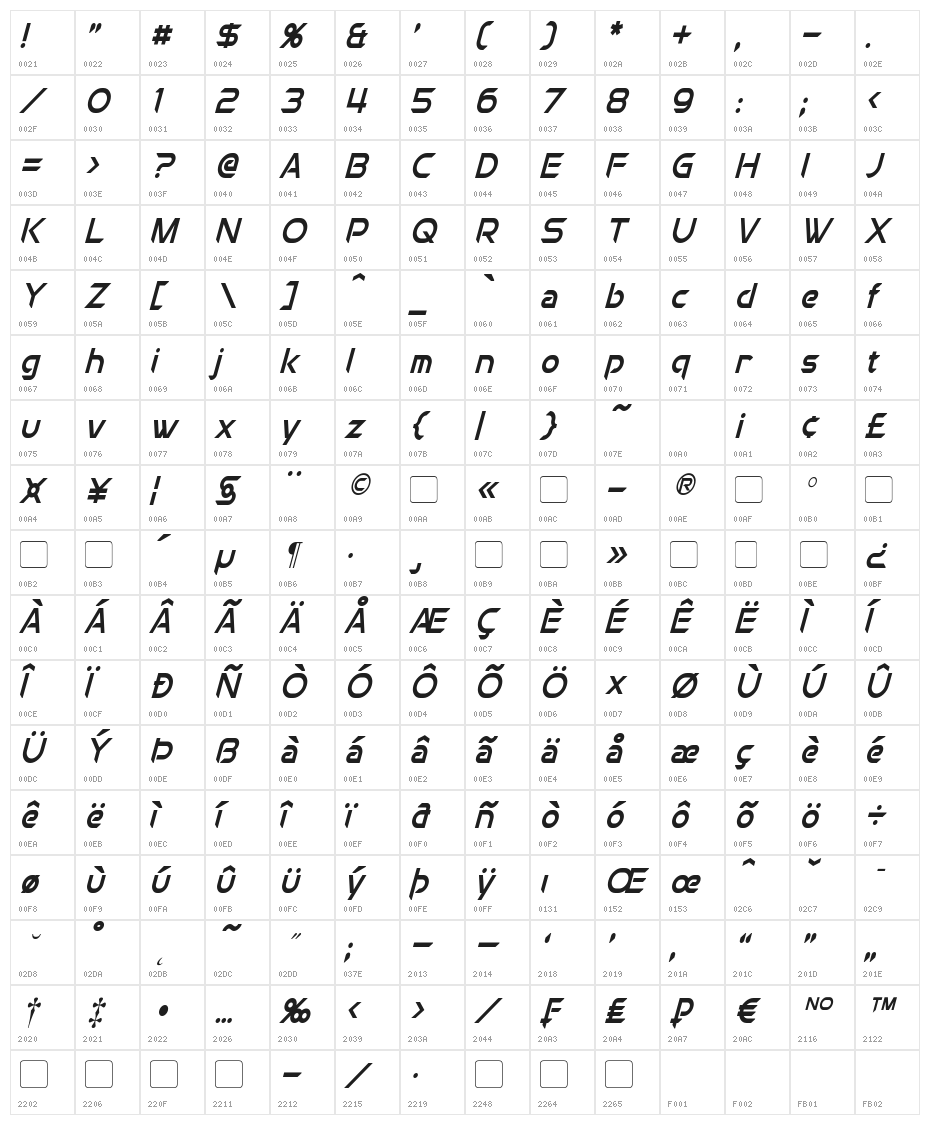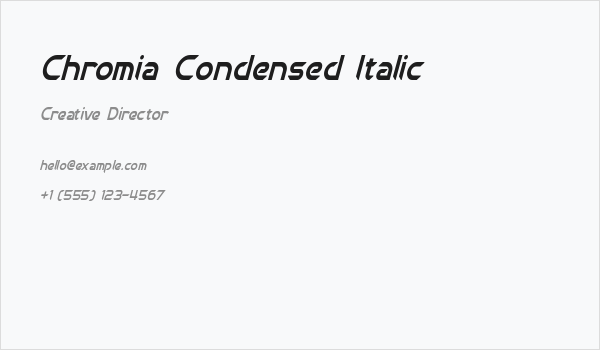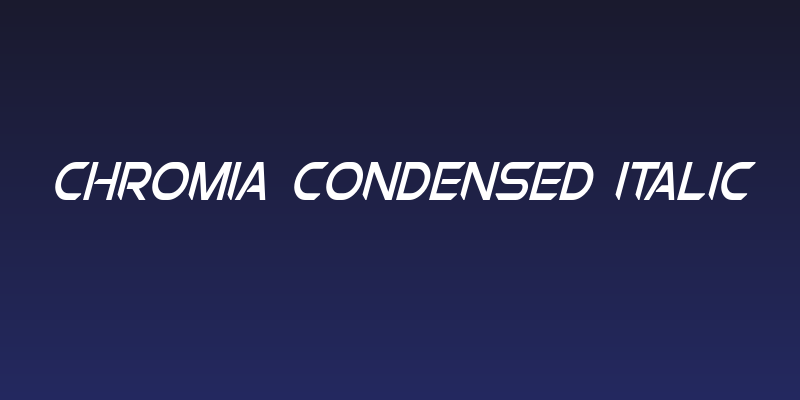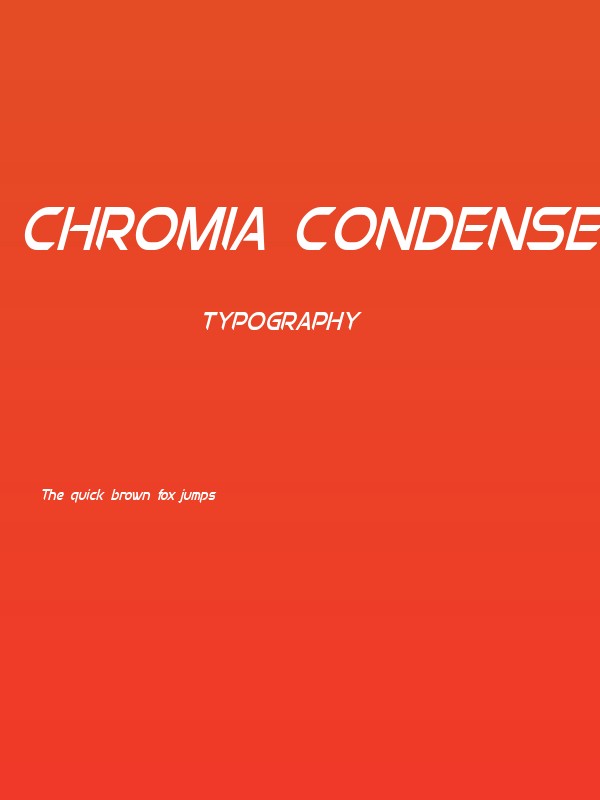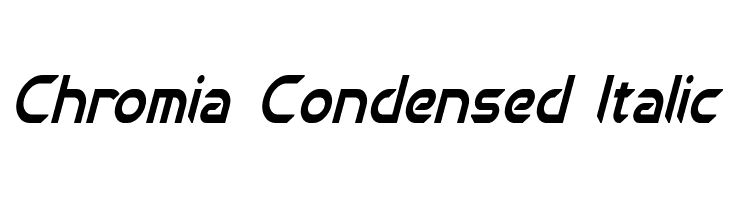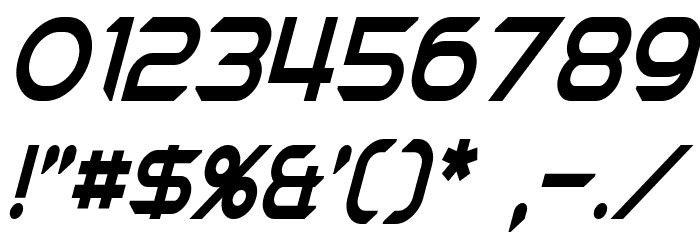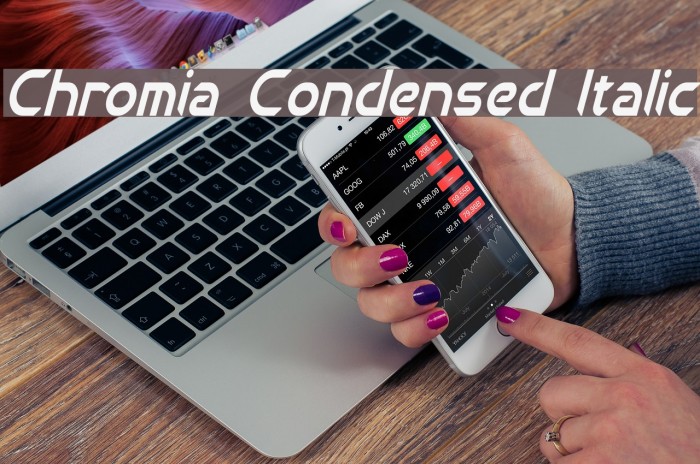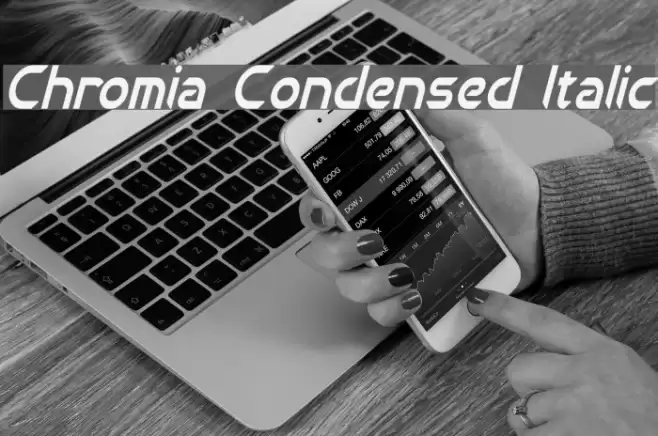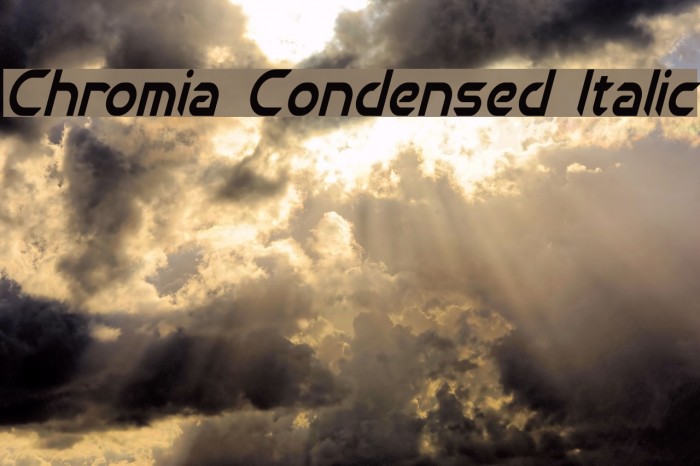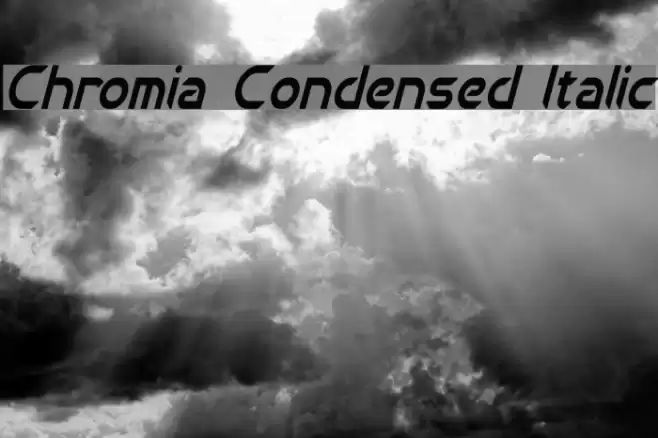
Chromia Condensed Italic Font
Chromia Condensed Italic Description
This font features a sleek, modern design with a condensed and italicized style. The characters are sharply angled, giving a dynamic and forward-moving appearance. The uppercase letters are bold and assertive, while the lowercase letters maintain a consistent flow with a slightly rounded finish. Numbers are clear and distinct, matching the overall aesthetic. Special characters are well-integrated, maintaining the font's cohesive look. The font's condensed nature allows for efficient use of space, making it ideal for headlines and impactful text displays.
| Proposed Projects | Ideal for modern branding, tech-related projects, dynamic posters, and sleek editorial designs. |